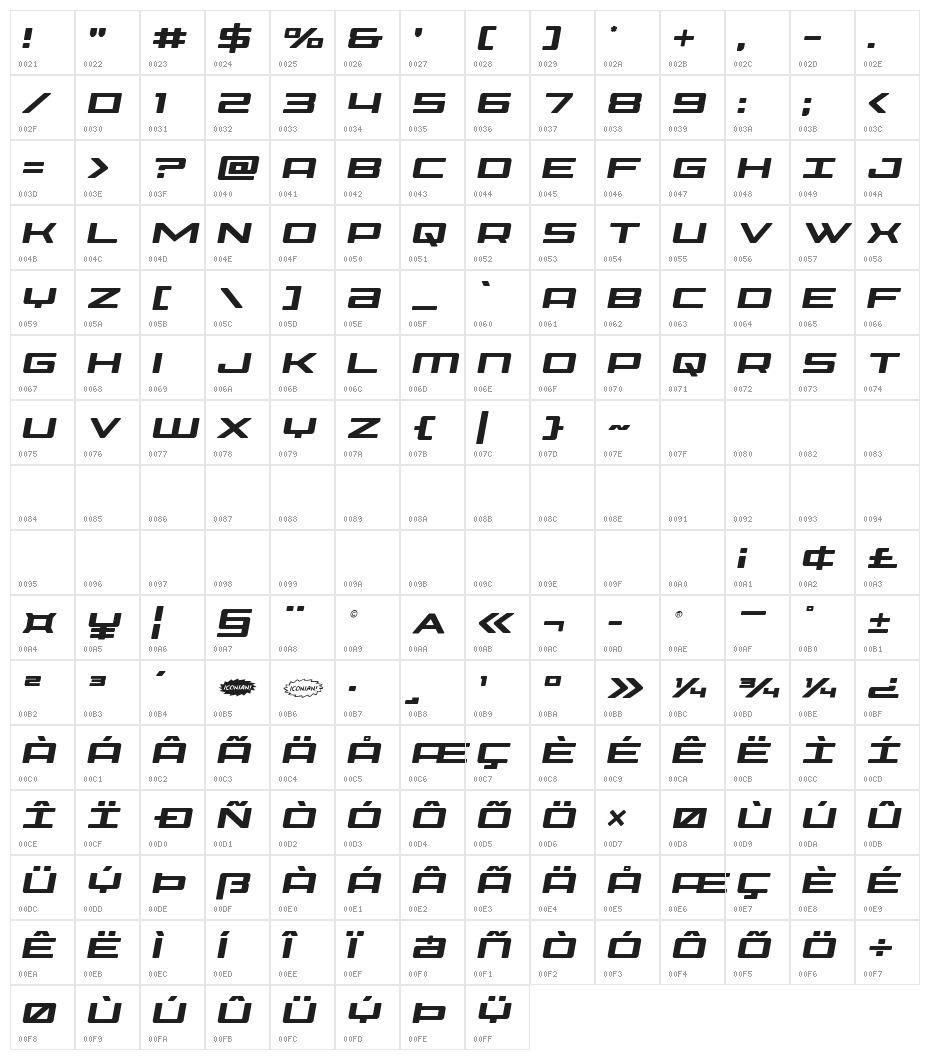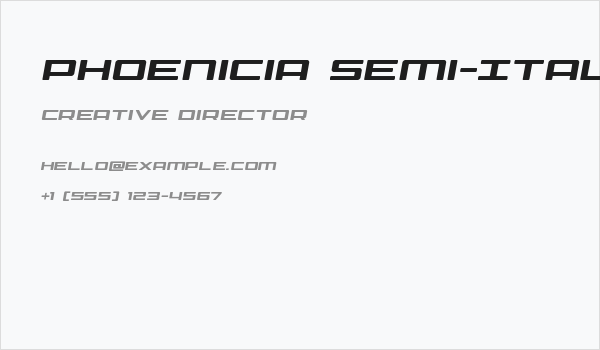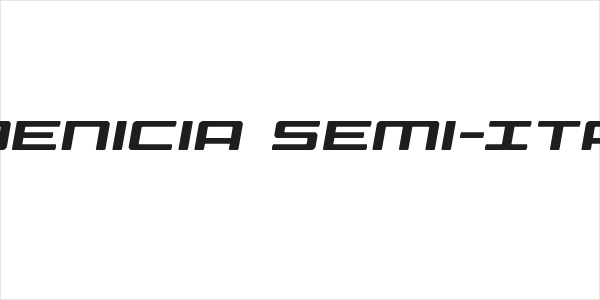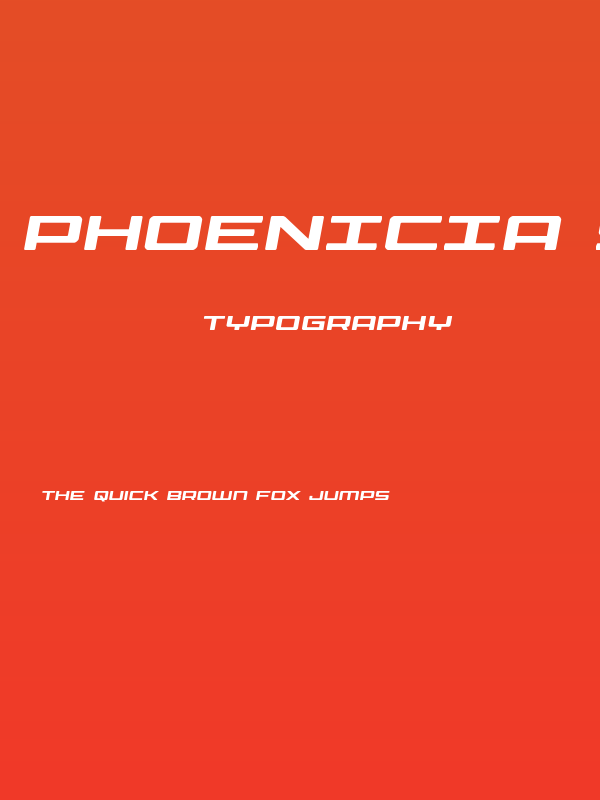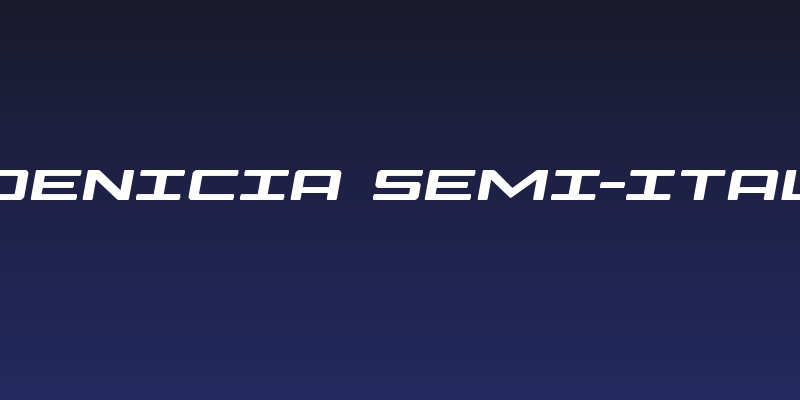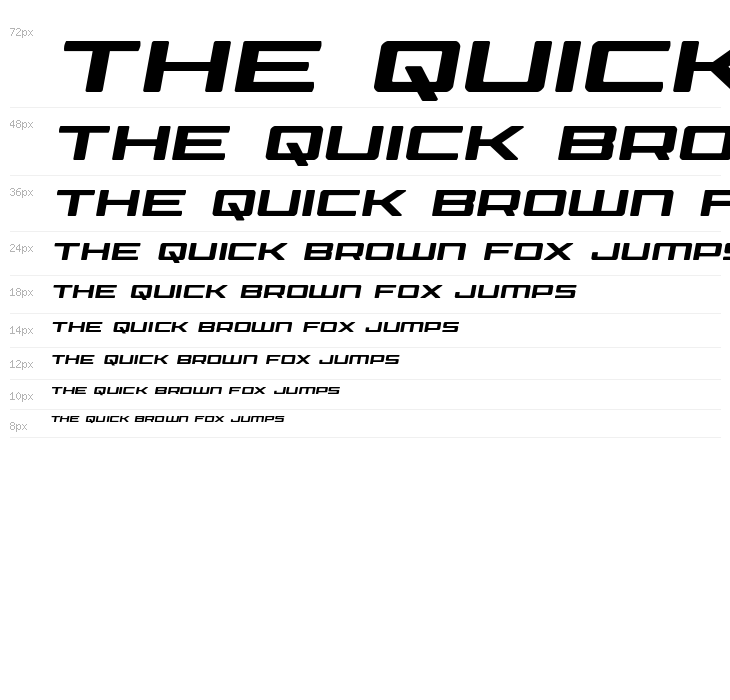
Phoenicia Semi-Italic Font
Phoenicia Semi-Italic Description
This font exhibits a sleek, modern design with a semi-italic slant, giving it a dynamic and forward-moving appearance. The characters are crafted with precision, featuring sharp angles and a geometric structure that enhances readability while maintaining a unique style. The uppercase and lowercase letters are consistent in their design, with a slight inclination that adds a sense of motion. The numerals and special characters are equally well-designed, ensuring uniformity across all elements. This font is ideal for projects that require a contemporary and professional look.
| Use Case | Headlines, Logos, Digital Media |
| Proposed Projects | Ideal for branding, advertising, and digital media projects that require a modern and professional aesthetic. |